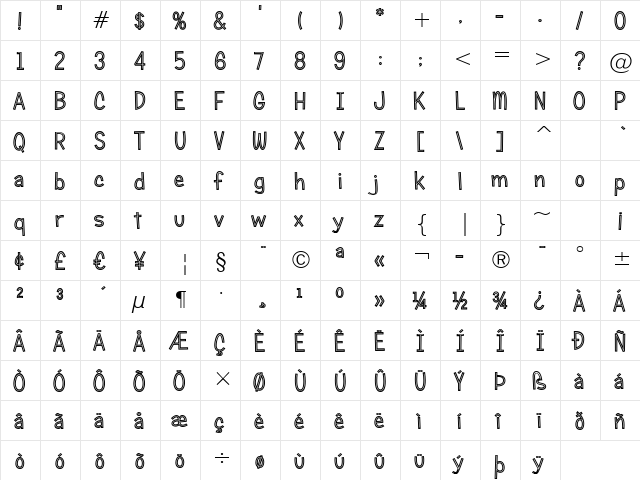
Candy Square BTN Striped Regular
Design Context for Candy Square BTN Striped Typeface
Candy Square BTN Striped is a composed and adaptable typeface that performs quietly and consistently across a wide range of design contexts.
Pro Tip: Pair Candy Square BTN Striped with a font of contrasting weight or personality to build a more expressive typographic hierarchy.